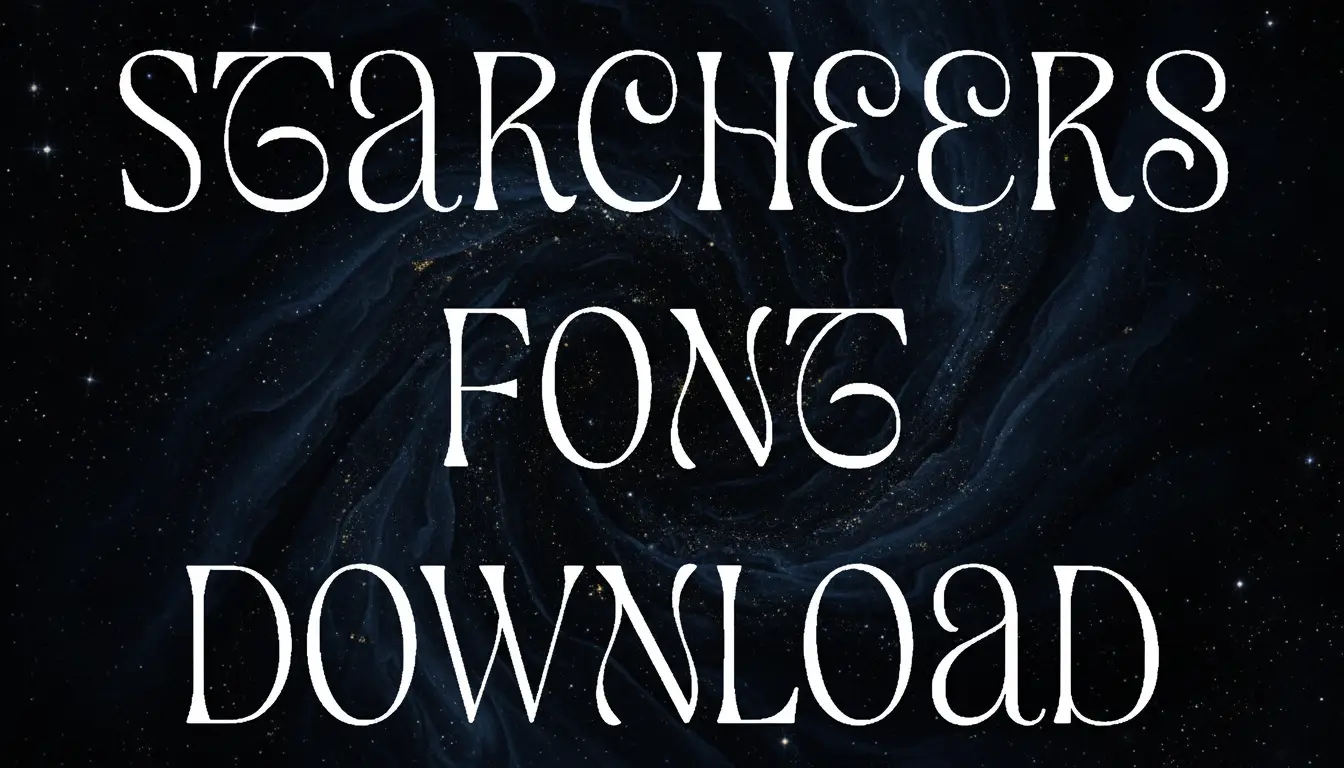
Starcheers Font
Starcheers
Starcheers is a fancy font designed by Mokatype – Abdul Malik – Adriansyah. Bold and full of character, it's built to stand out rather than blend in. You can download it for free and test it with your own words in the preview above.
What You Can Type With Starcheers
You get every letter from A to Z in both cases and all the numbers from 0 to 9, which means Starcheers can handle full sentences, dates and prices. Everyday marks like &, !, ? and @ are there too. Thanks to its accented letters, it also works for Spanish, French, German, Portuguese and Italian, not just English.
Where Starcheers Works Best
Starcheers is a natural fit for posters, logos and eye-catching headlines. Use it for one standout word or headline and let simpler fonts handle the rest.
Does Starcheers support accented letters?
Yes. Starcheers includes the accented letters needed for Spanish, French, German, Portuguese and Italian, so it works for more than just English.